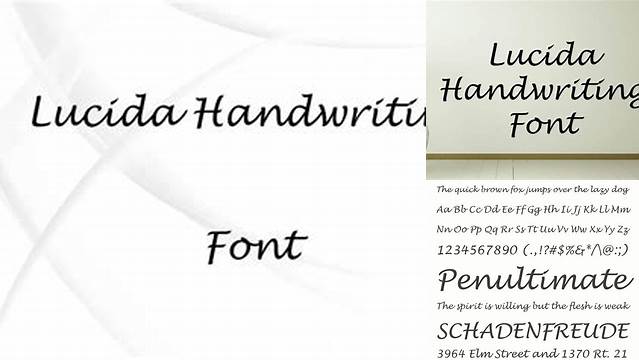
1. What is Lucida Handwriting STD?
Lucida Handwriting STD is a stunning font that mimics, well, handwriting! It’s part of the Lucida font family designed by Charles Bigelow and Kris Holmes. This font is known for its flowing script and readable style, making it a favorite for invitations, greeting cards, and even branding materials. But, before you get too excited, let’s clarify something crucial. When we talk about a “free font,” it’s essential to understand licensing. You might find versions online that claim to be free, but they might not be for commercial use. So, always double-check the license before using any font in your projects.
5. Lucida Handwriting STD Font Pairing: Best Combinations
Font pairing is an art, my friends! Using Lucida Handwriting STD with the right companion font can elevate your design from good to amazing. Generally, script fonts like Lucida Handwriting work well with clean, sans-serif fonts. Think Arial, Helvetica, or even Open Sans. The contrast between the elegant script and the simple sans-serif creates a balanced and visually appealing look. Experiment with different combinations to find what works best for your project. Don’t be afraid to mix and match!
7. Lucida Handwriting STD in Graphic Design Projects
In graphic design, Lucida Handwriting STD can be a real game-changer. It’s perfect for creating a personal and inviting feel. Imagine using it on business cards, logos, or even social media graphics. However, remember that readability is key. While Lucida Handwriting STD is beautiful, it might not be the best choice for large blocks of text. Use it sparingly to highlight important information or add a touch of elegance.
8. Lucida Handwriting STD Calligraphy: The Art of Script
Lucida Handwriting STD truly captures the essence of calligraphy. Its flowing lines and elegant curves make it a fantastic choice for projects that require a touch of sophistication. Think wedding invitations, thank you notes, or even personalized stationery. The font’s natural script style lends itself beautifully to these applications, adding a human touch that other fonts might lack. Embrace the artistry of script, guys!